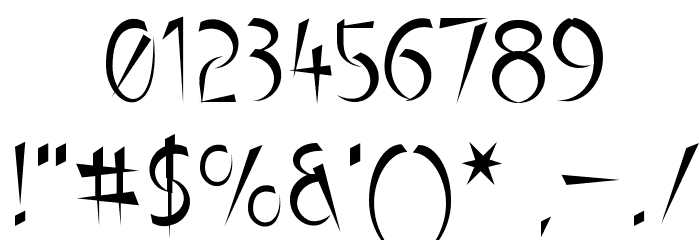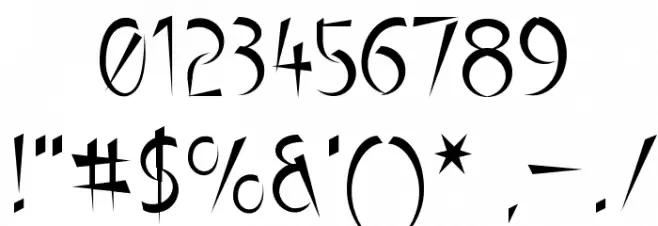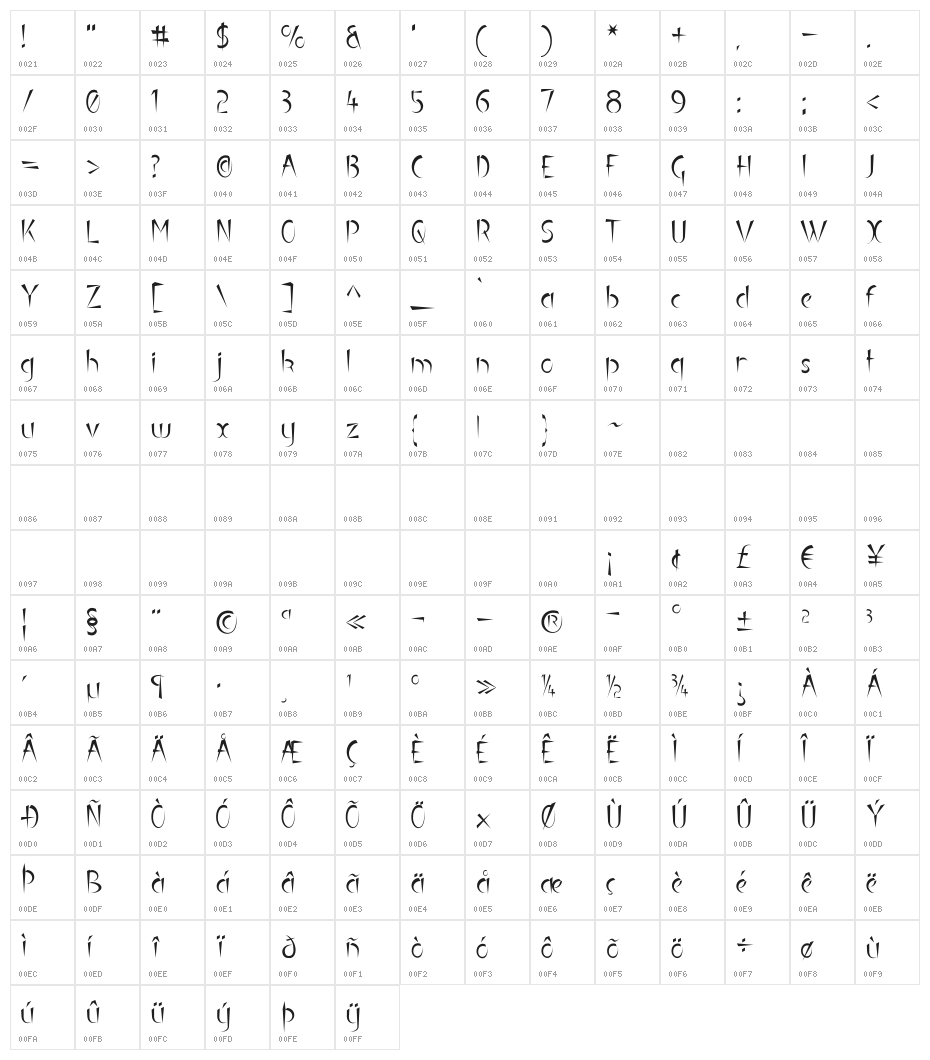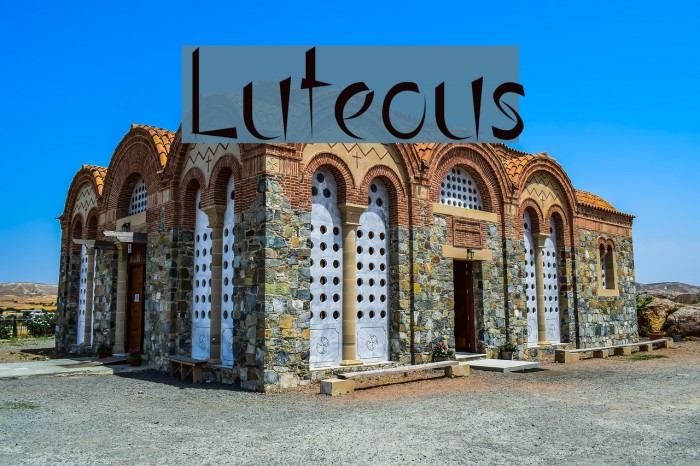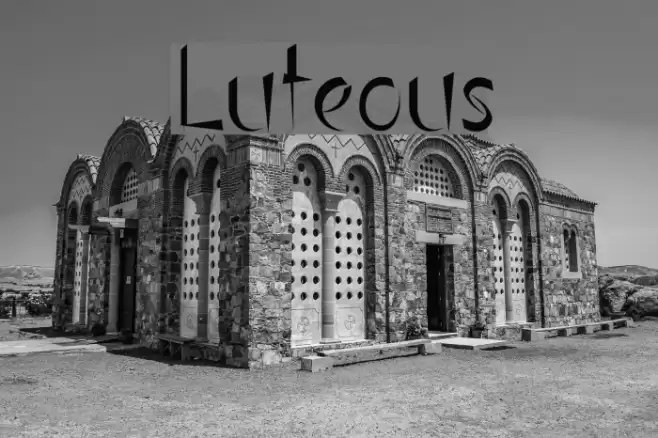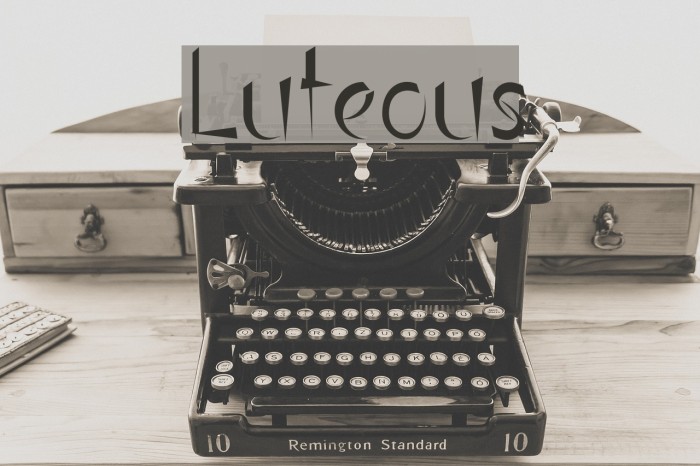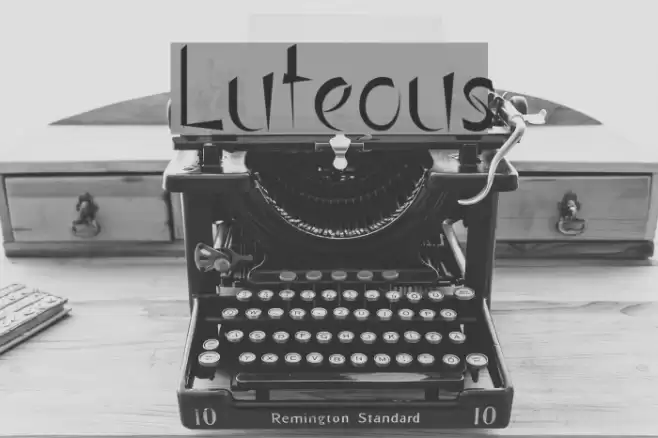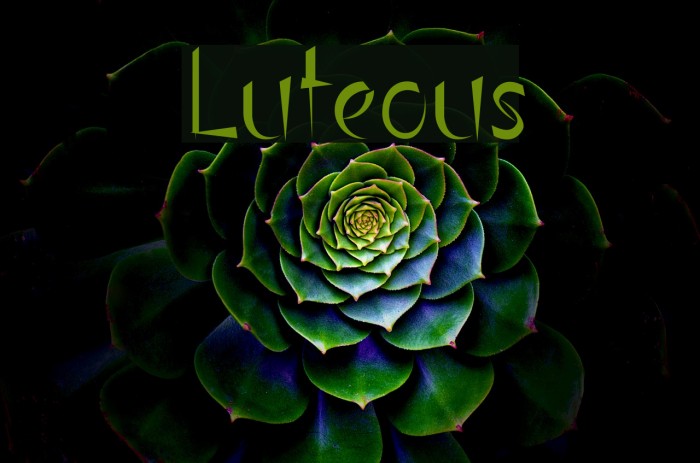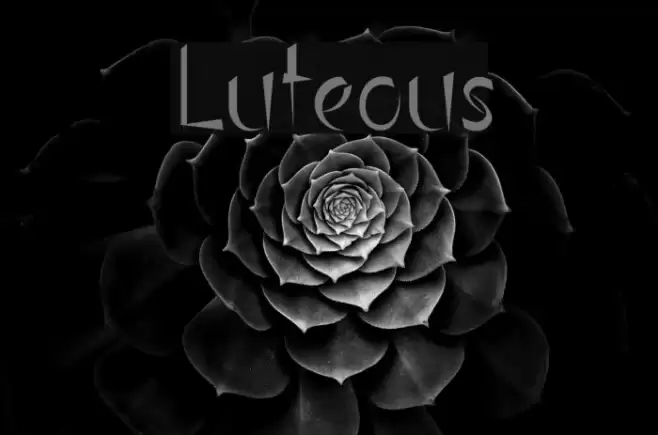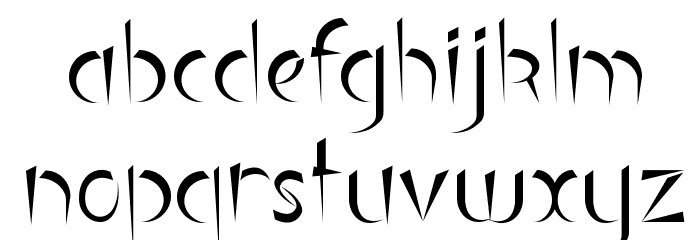
Luteous Font
Luteous Description
This font features a striking and edgy design with sharp, angular lines and a dynamic flow. The characters are crafted with a unique blend of pointed edges and smooth curves, creating a sense of movement and energy. The uppercase letters are particularly bold, with exaggerated spikes and slashes that give them a dramatic appearance. The lowercase letters maintain the same sharpness but with a slightly softer touch, providing a balanced contrast. Numbers and special characters follow the same stylistic approach, ensuring consistency throughout the typeface. This font is ideal for projects that require a bold and modern aesthetic with a touch of rebellion.
| Overall Style | Modern, Edgy |
| Proposed Projects | Ideal for music album covers, edgy branding, posters, and modern art projects. |